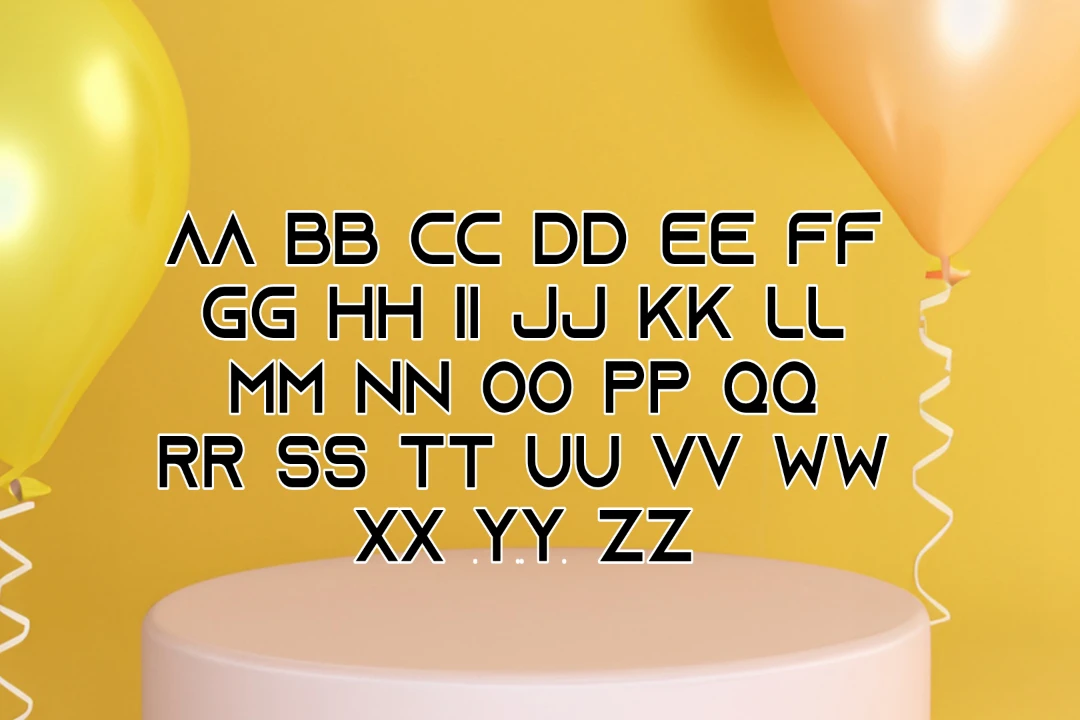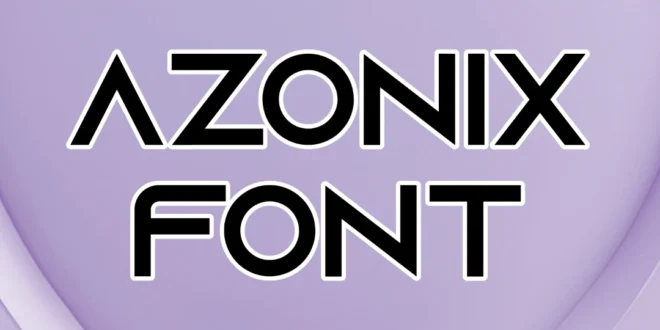
Azonix Font is a sleek, modern typeface known for its geometric design and sharp lines. Created by designer Mixo, Oliver.
This font falls under the sans-serif category, meaning it doesn’t have the small feet or extensions that traditional serif fonts have.
Azonix’s design is clean, futuristic, and minimal, making it a popular choice for digital projects, logos, and branding elements that aim to look modern and professional.
You can also pair this font with nimbus sans font and create fantastic projects. Its uppercase letters and simple shapes give designs a bold, impactful look, making them easy to read and visually appealing.
Uses of Azonix Font
With its geometric shapes and minimalist design. It stands out for logos, poster titles, and website headers. Its clear letterforms make it easy to read even in smaller sizes, adding to its versatility in various creative projects.
It is particularly popular for logo design due to its sleek, modern appearance. Many tech companies, startups, and modern brands use Azonix to capture a forward-thinking image.
Designers often pair it with other minimal fonts like Samsung Sans Font, for a polished, professional look.
Does Azonix Font support lowercase letters?
No, this texture is an uppercase-only font, which contributes to its bold, statement-making style.
Is Azonix a good choice for body text?
This font is best suited for headlines, logos, and titles rather than long paragraphs due to its uppercase-only, bold design.
What is a good pairing font for Azonix?
Fonts like Montserrat or Roboto pair well with Azonix, as they offer a clean, minimal look without overshadowing Azonix’s bold style.